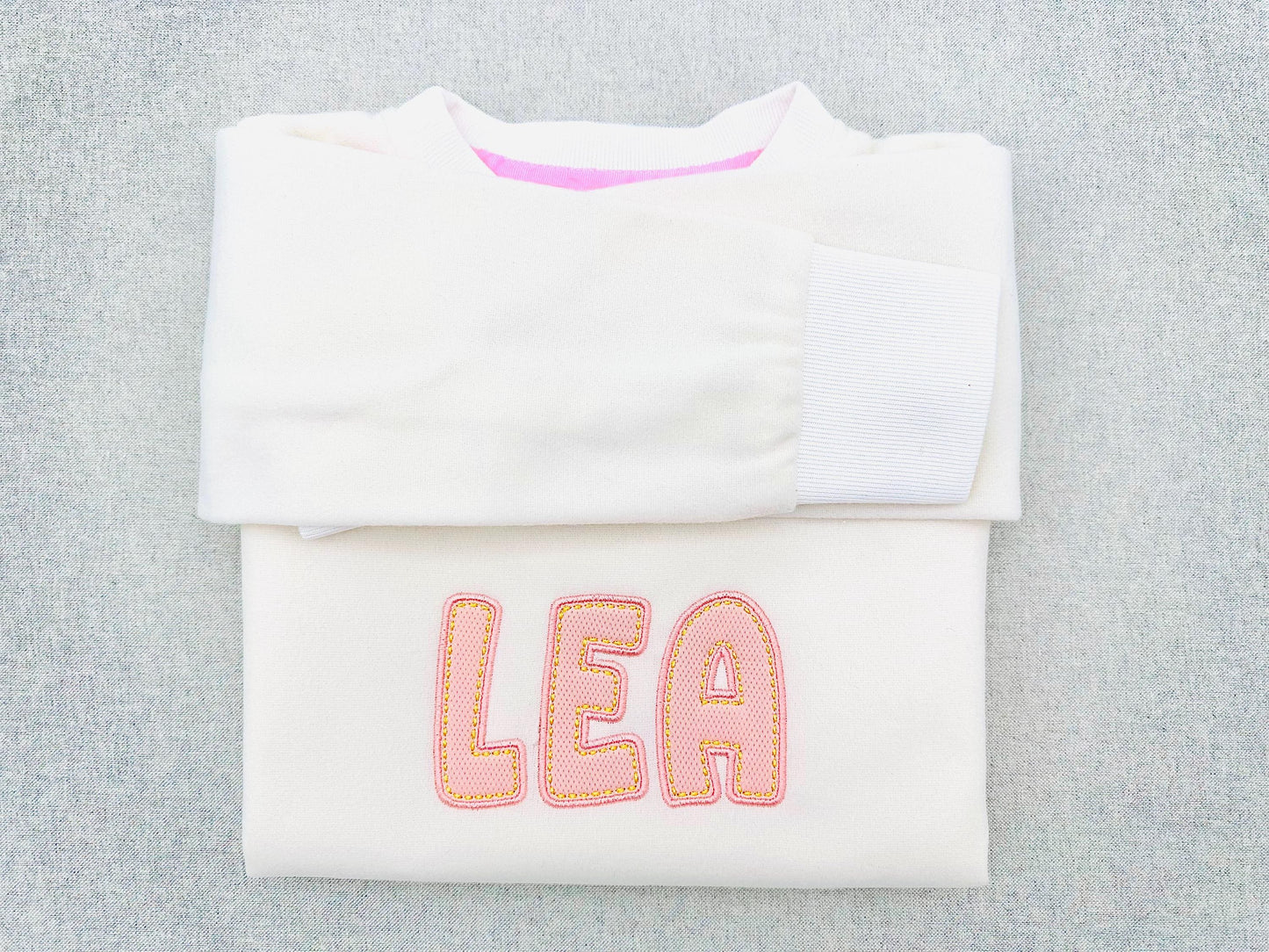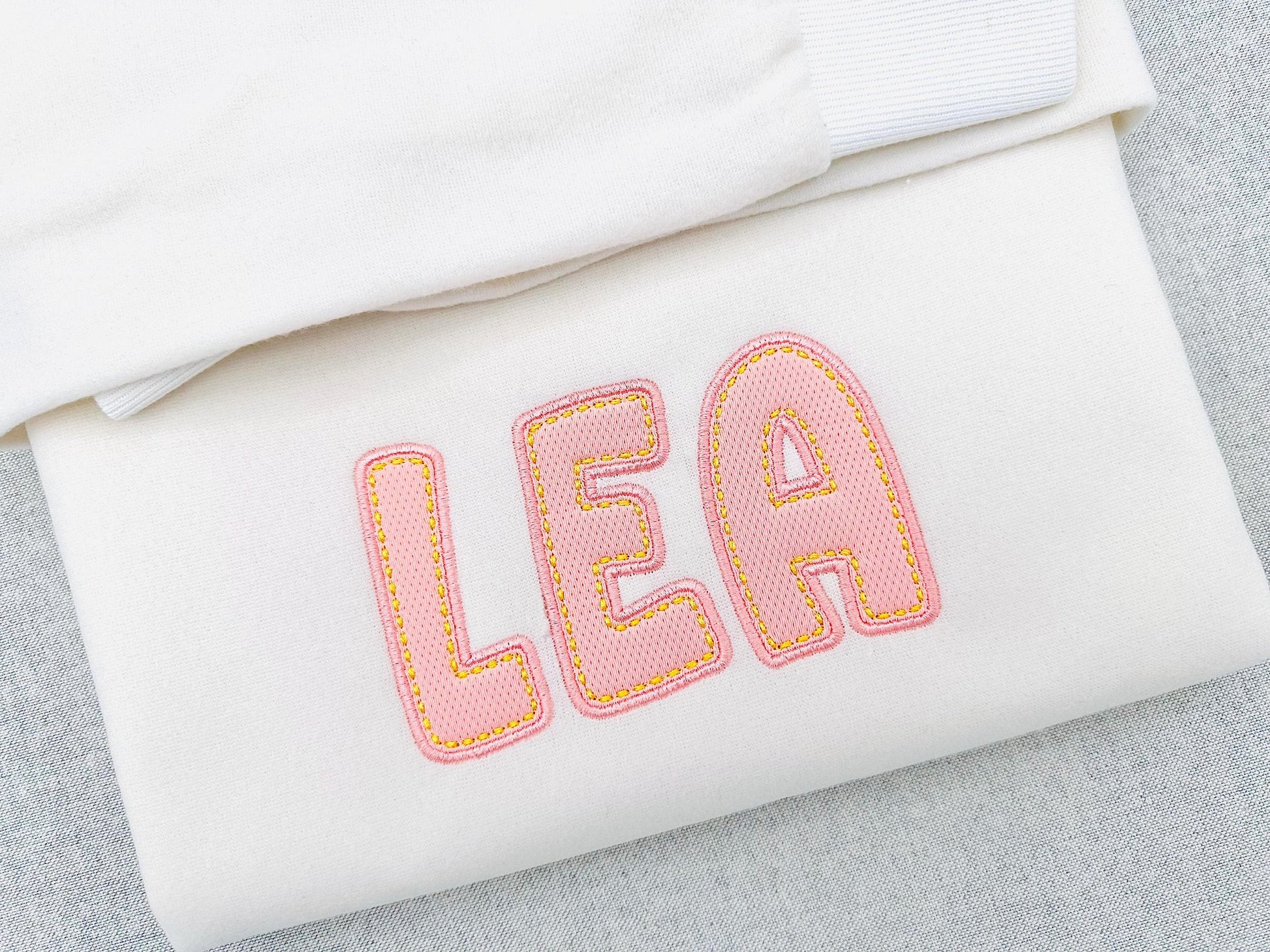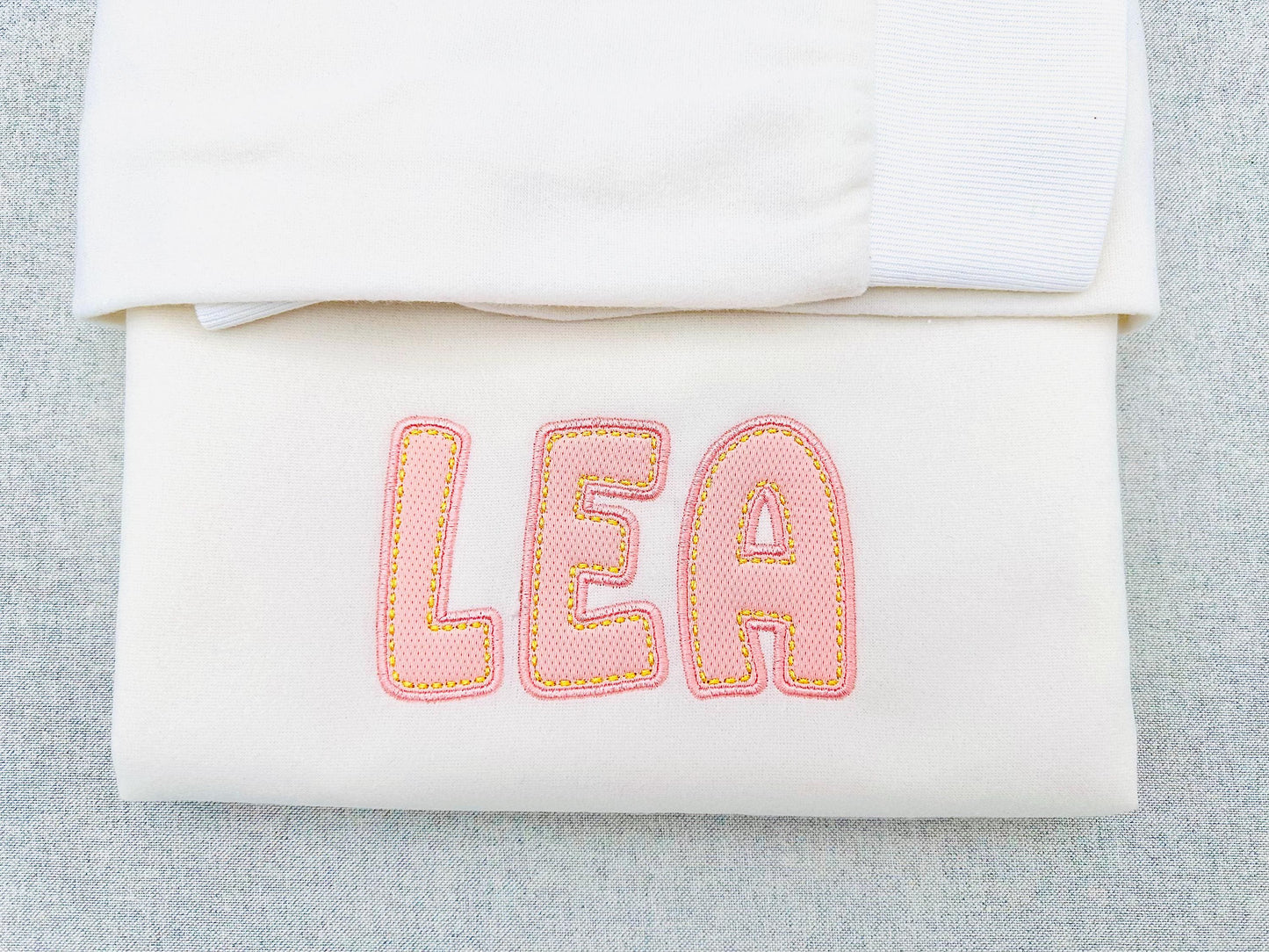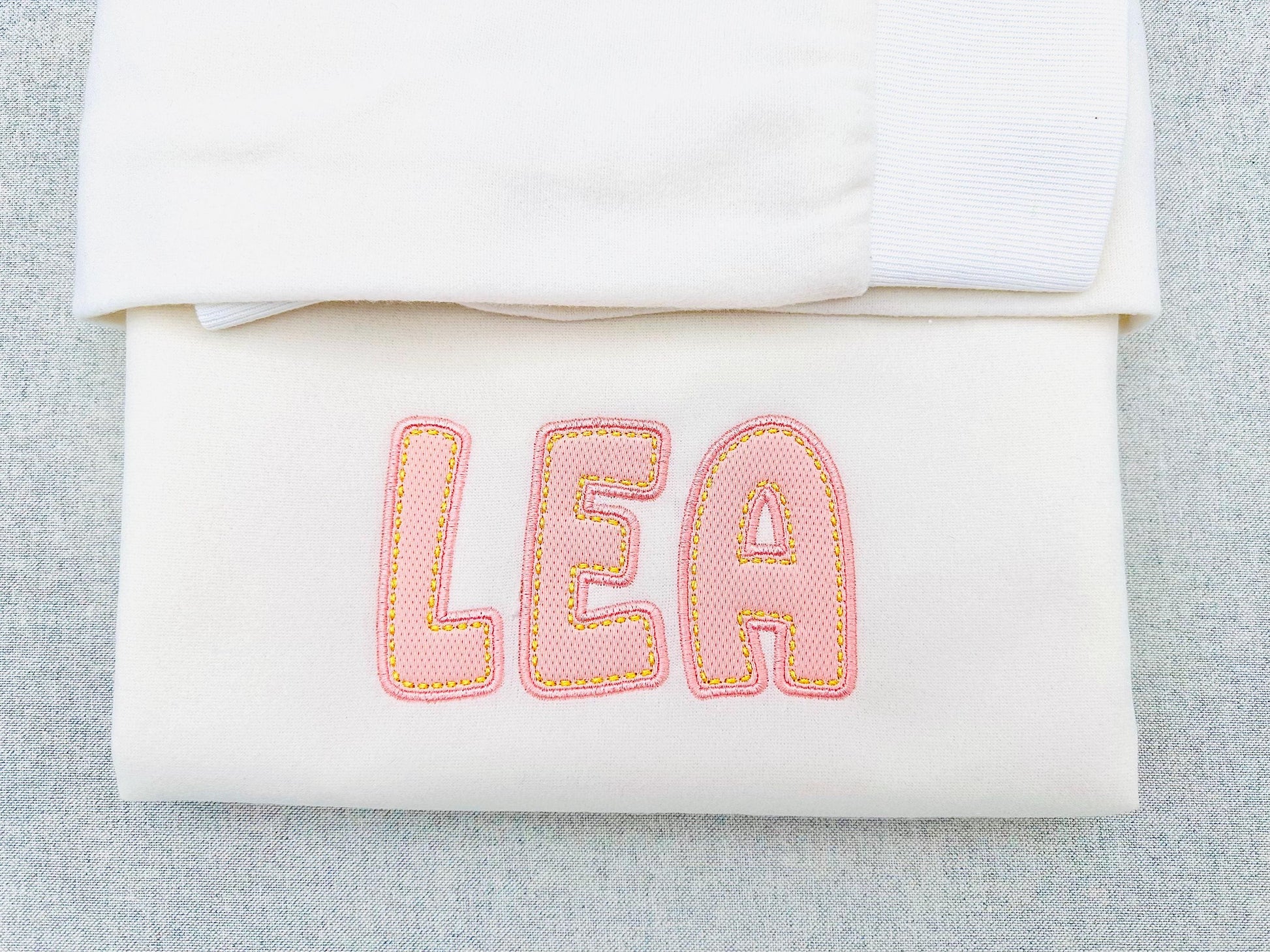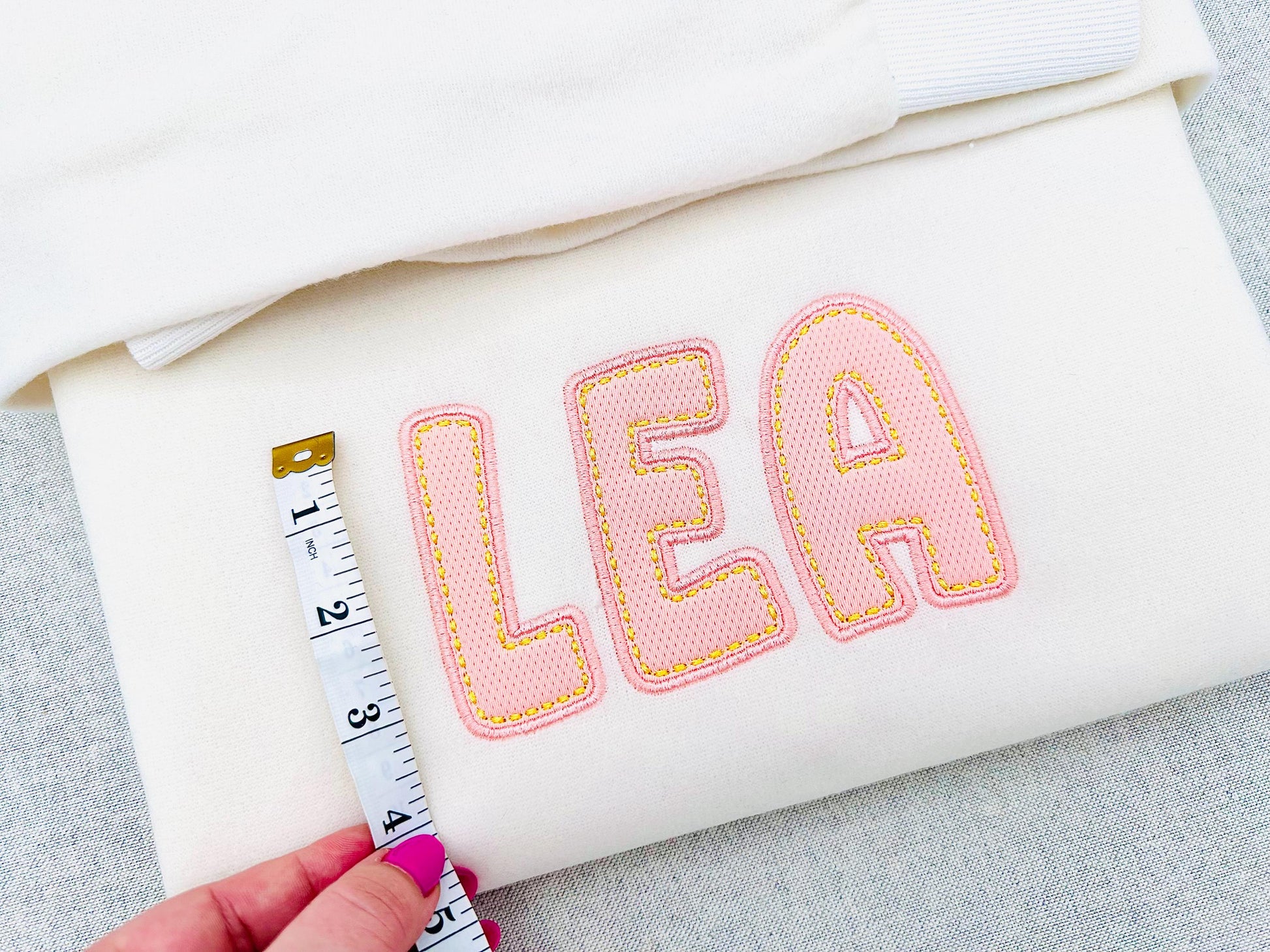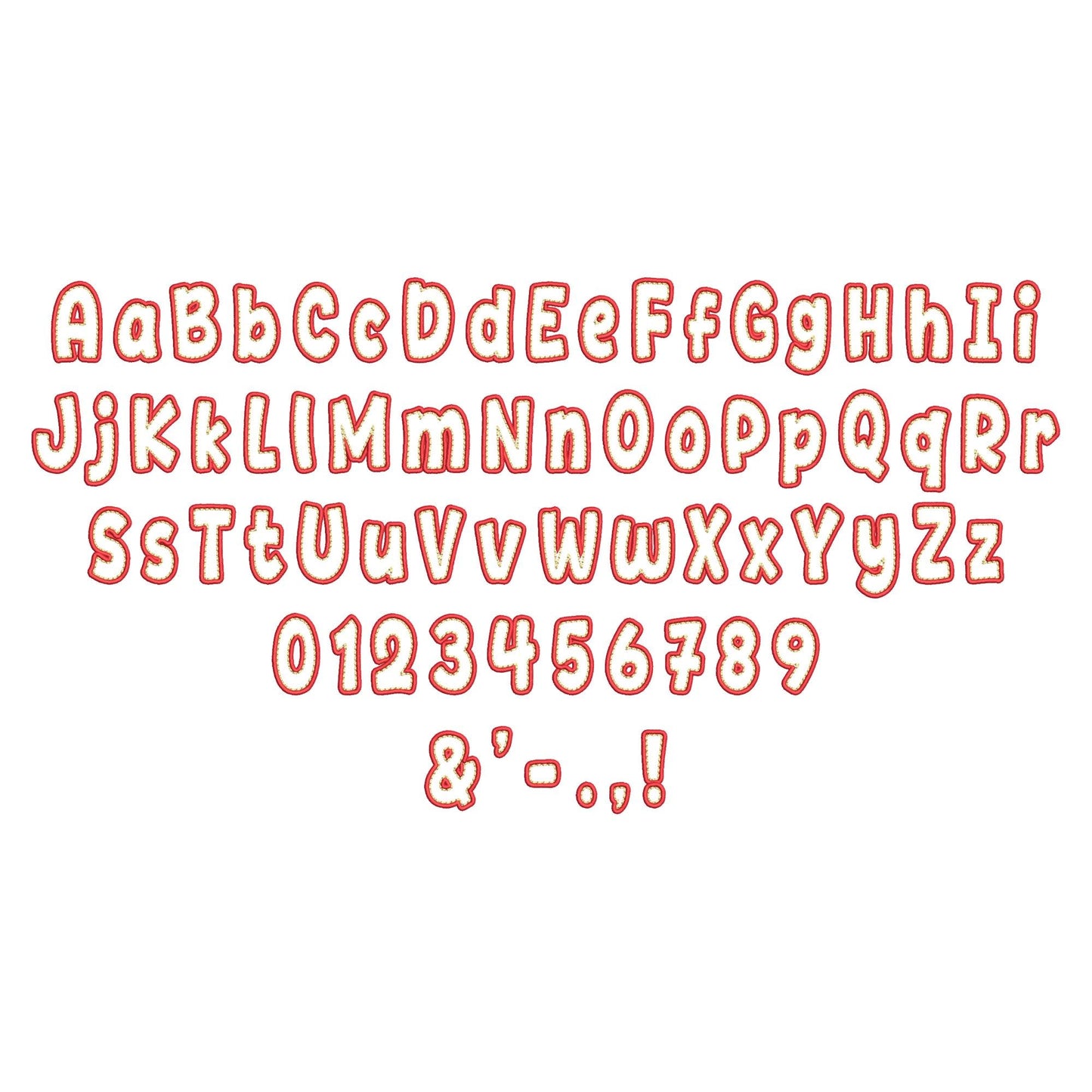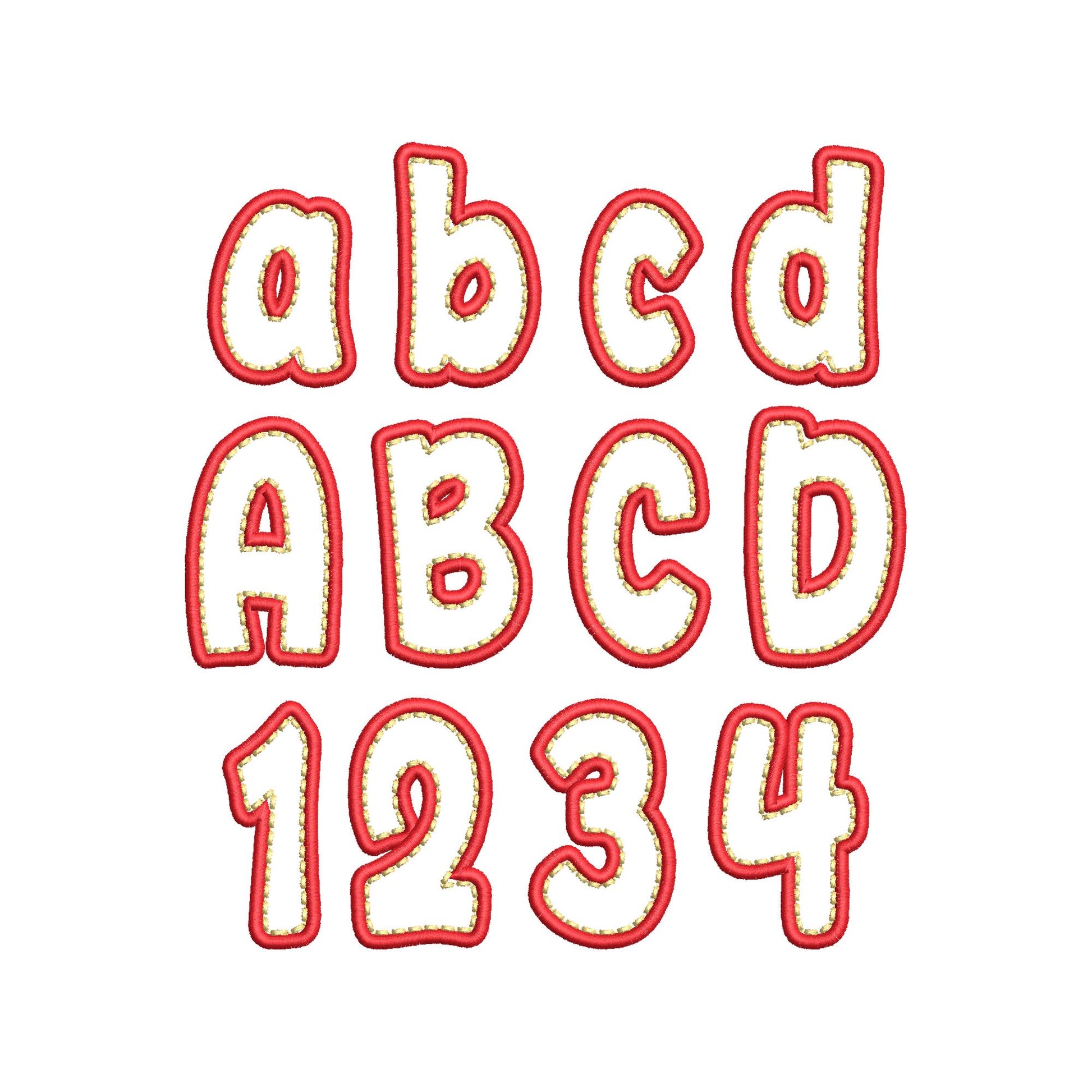
Or click to open the linkAn applique font with a wide satin outline and a hand-stitch outline for a handmade look. Great for names and monograms on sweatshirts, pillows, blankets and bags.
The letters come in five sizes: 1.8, 2.2, 2.8, 3.5 and 4.1 inches. Includes uppercase and lowercase letters, numbers 0-9 and punctuation.